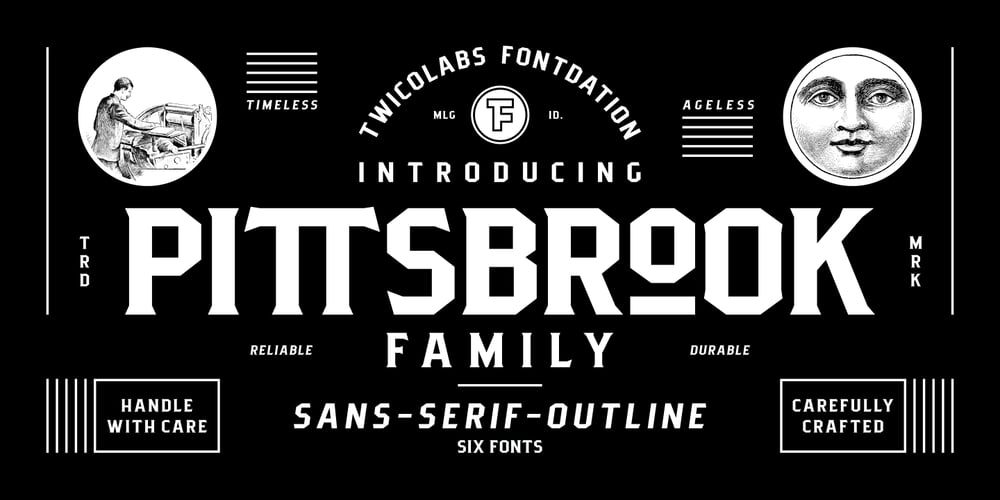
Pittsbrook Font Family was designed by Fahrizal Tawakkal and published by Fontdation. Pittsbrook contains 6 styles and family package options. Pittsbrook Family, a pack of classic typefaces that inspired by the letters used in old advertisement and packagings. Its rigid shape gives you strong, sharp and blocky feelings, no curves were harmed in the making of these typefaces. Comes in three styles; Sans, Serif and Outline, all of them are consistently mouse-crafted characters, we spent a lot of attention to every details. Suits best for any classic/vintage design project, such as E-Sport logo, liquor/food label, packaging, headline, space-filler, logotype, typographic quote writings, etc.